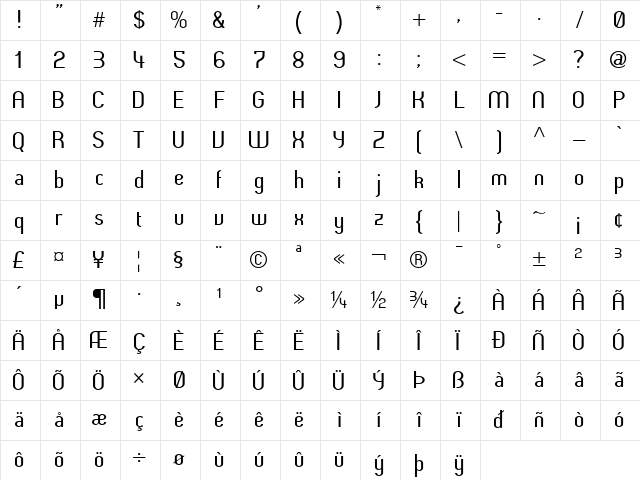
Butter unsalted
Style: unsalted
Foundry: Gilles Pegel
Designer: Pegel Gilles
Butter Family
Butter unsalted
Design Context for Butter
Butter is a composed and adaptable typeface that performs quietly and consistently across a wide range of design contexts.